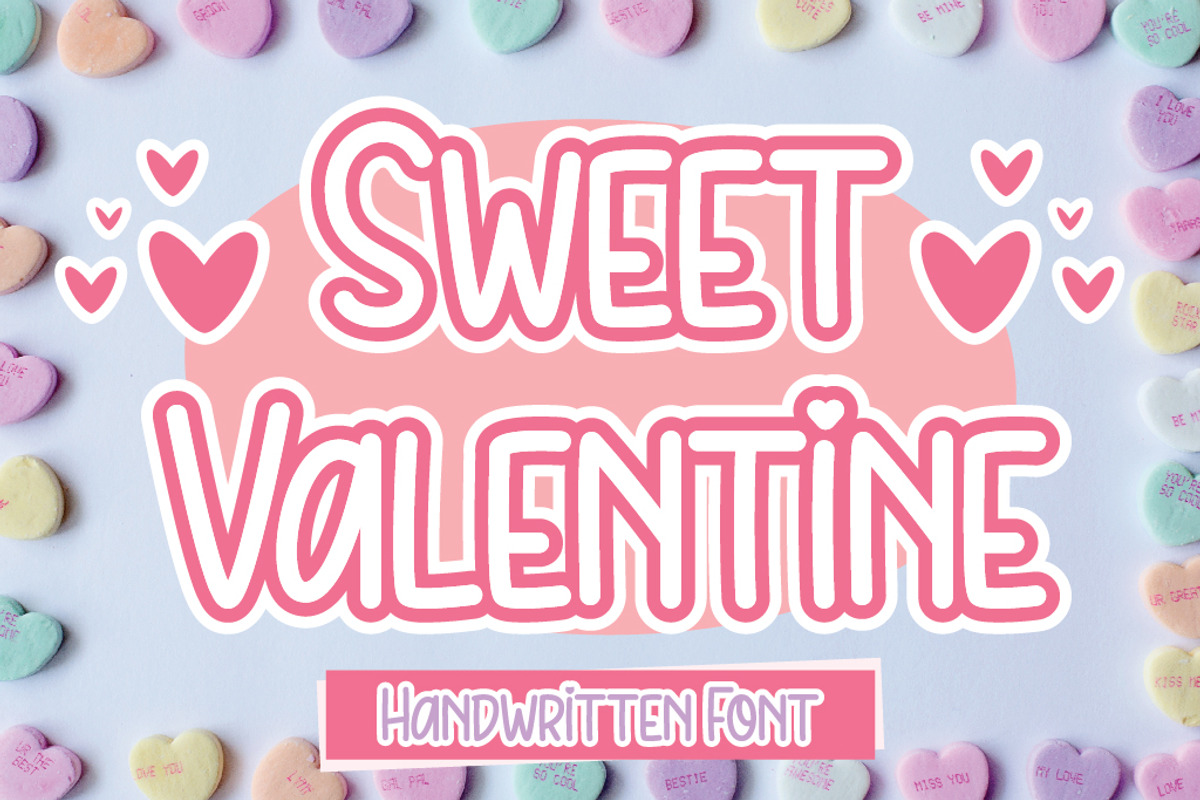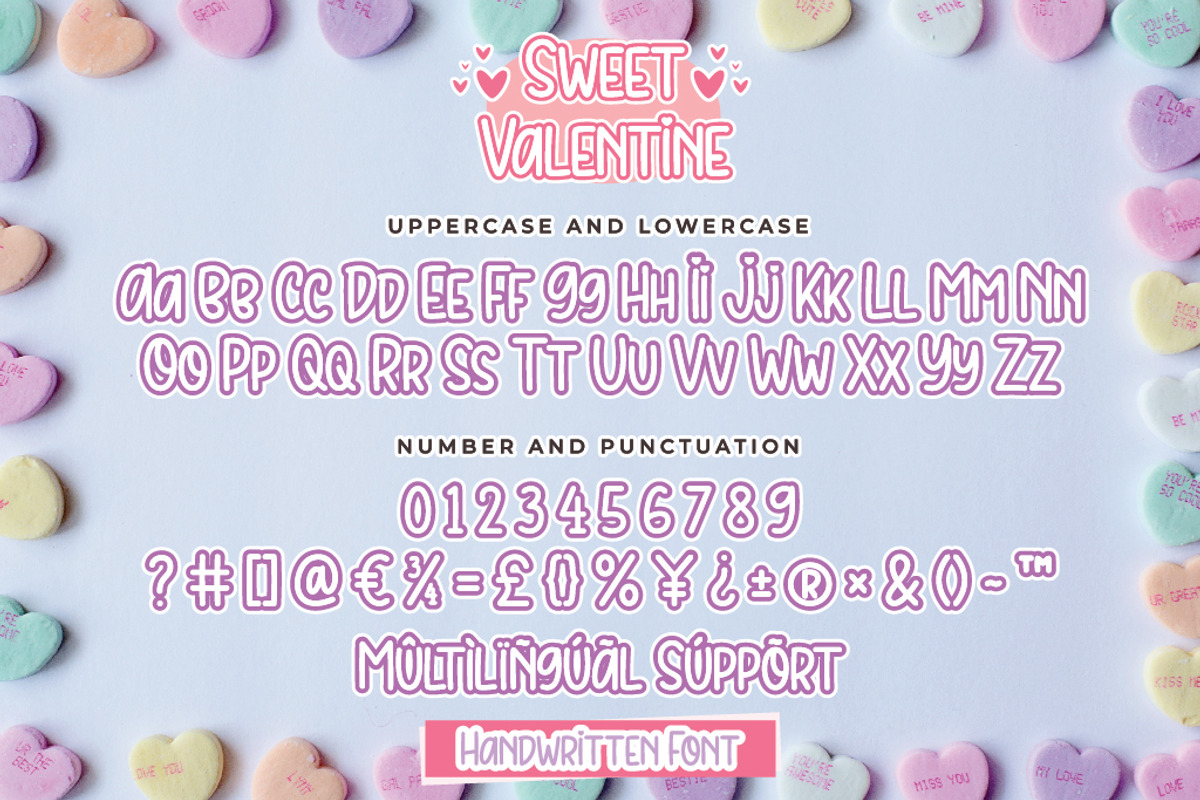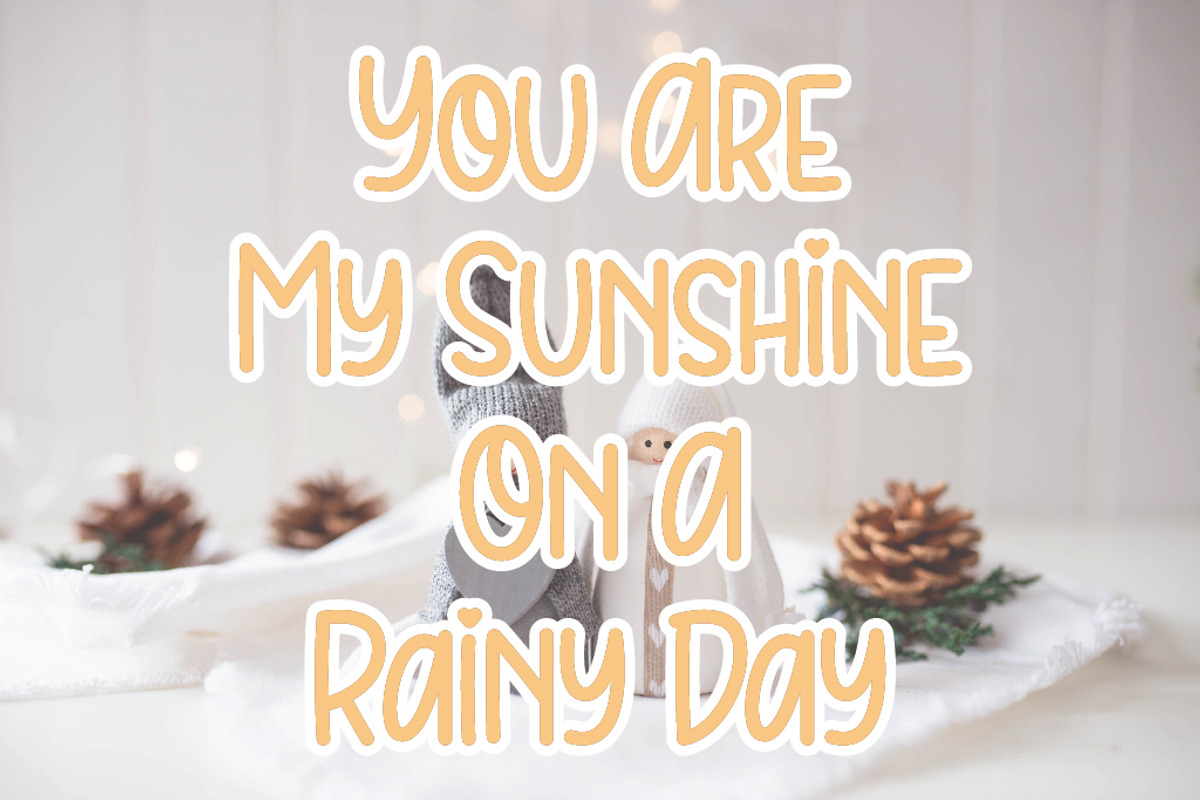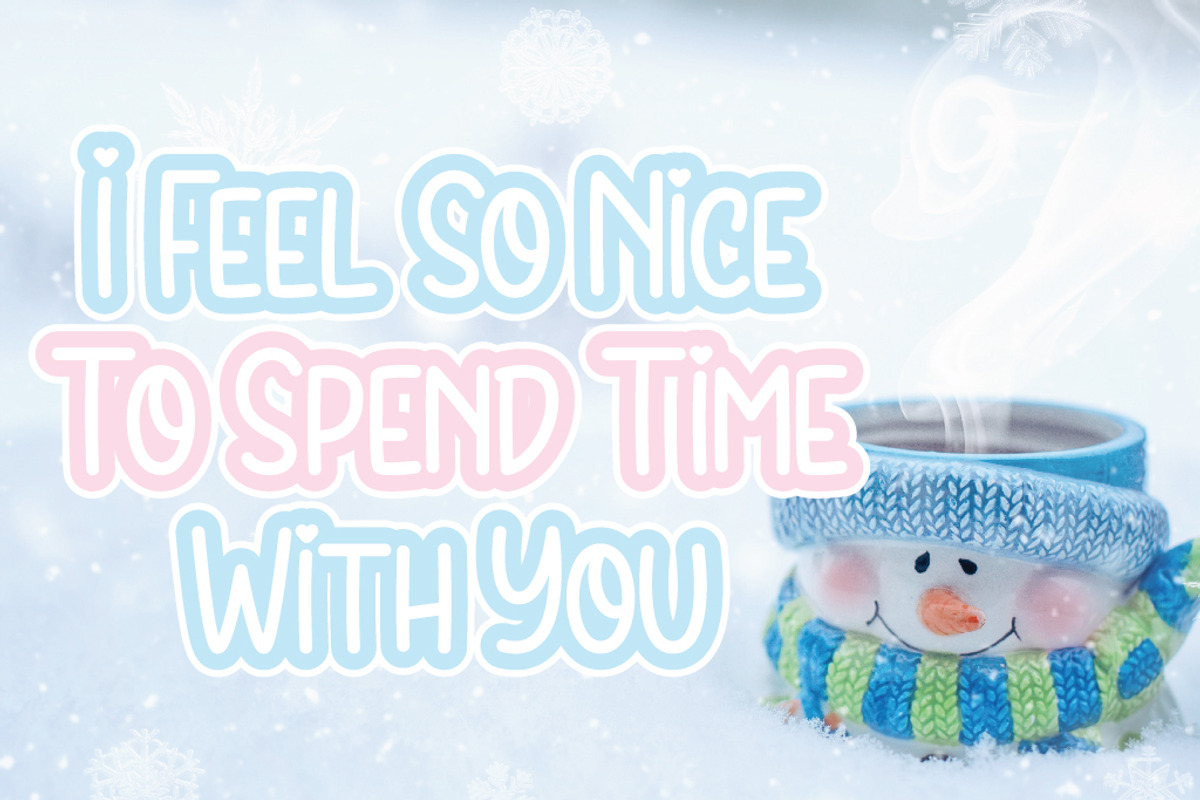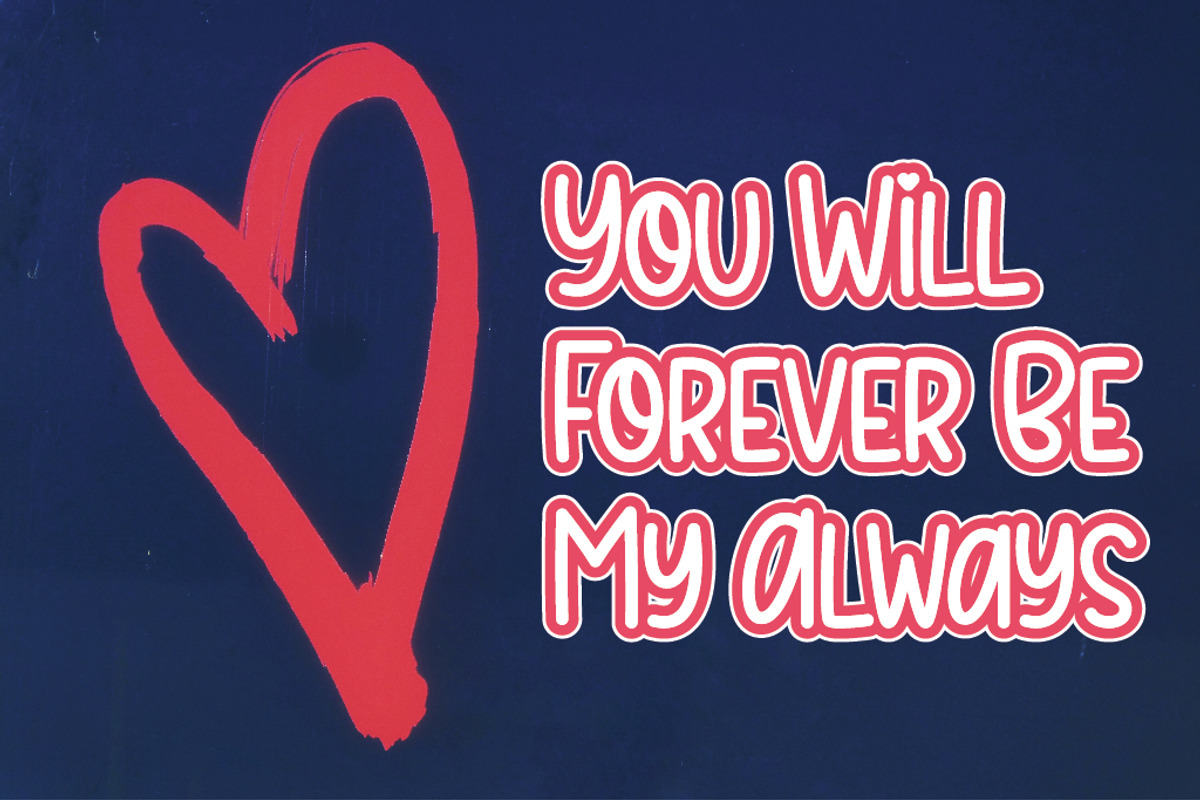
Sweet Valentine Font
Sweet Valentine is a simple handwritten font with a creative twist. Sweet Valentine goes well with any design by adding a cute and minimalist feel. Sweet Valentine is compatible with many tools, such as Illustrator and Photoshop supports multilingual features. Its playfulness make it great for creative project, be it inspirational wall posters or for communicating your brand.